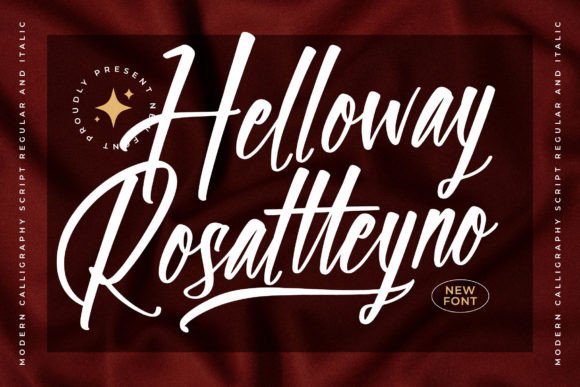
In a world where words dance, there exists a font that captures the essence of elegance and charm - the Helloway Rosaltteyno Font. Radiating with the beauty of modern calligraphy, this script invites you to elevate your designs to a realm of sophistication. Immerse yourself in a world of endless creative possibilities with this captivating font.
Picture a wedding invitation adorned with the graceful curves of the Helloway Rosaltteyno Script, a testament to the timeless beauty of love. Its delicate strokes whisper romance, evoking emotions that resonate with the heart. Let your designs bloom with grace and allure as this font transforms your creative vision into a masterpiece.
Journey beyond the realm of matrimony and unveil a font that lends its charm to a myriad of projects. Whether you're crafting logos that exude professionalism or homeware designs that radiate warmth, the Helloway Rosaltteyno Script is your faithful companion. Its versatility knows no bounds, adapting seamlessly to product packaging, mugs, posters, and even shopping bags.
With the Helloway Rosaltteyno Script by your side, unlock a world of creative potential. Let your imagination soar as you create book covers that captivate, name cards that impress, and invitation cards that leave a lasting impression. Greeting cards adorned with its elegant charm become cherished keepsakes, while labels and photography adorned with its delicate touch elevate the ordinary to the extraordinary.
Unleash the eloquence of the Helloway Rosaltteyno Script in your designs and witness the magic unfold. Its versatility extends to watermarks, special events, and every project that beckons for a touch of elegance. Let your creativity flourish as this font imbues your work with a timeless allure that captivates hearts and ignites imaginations.